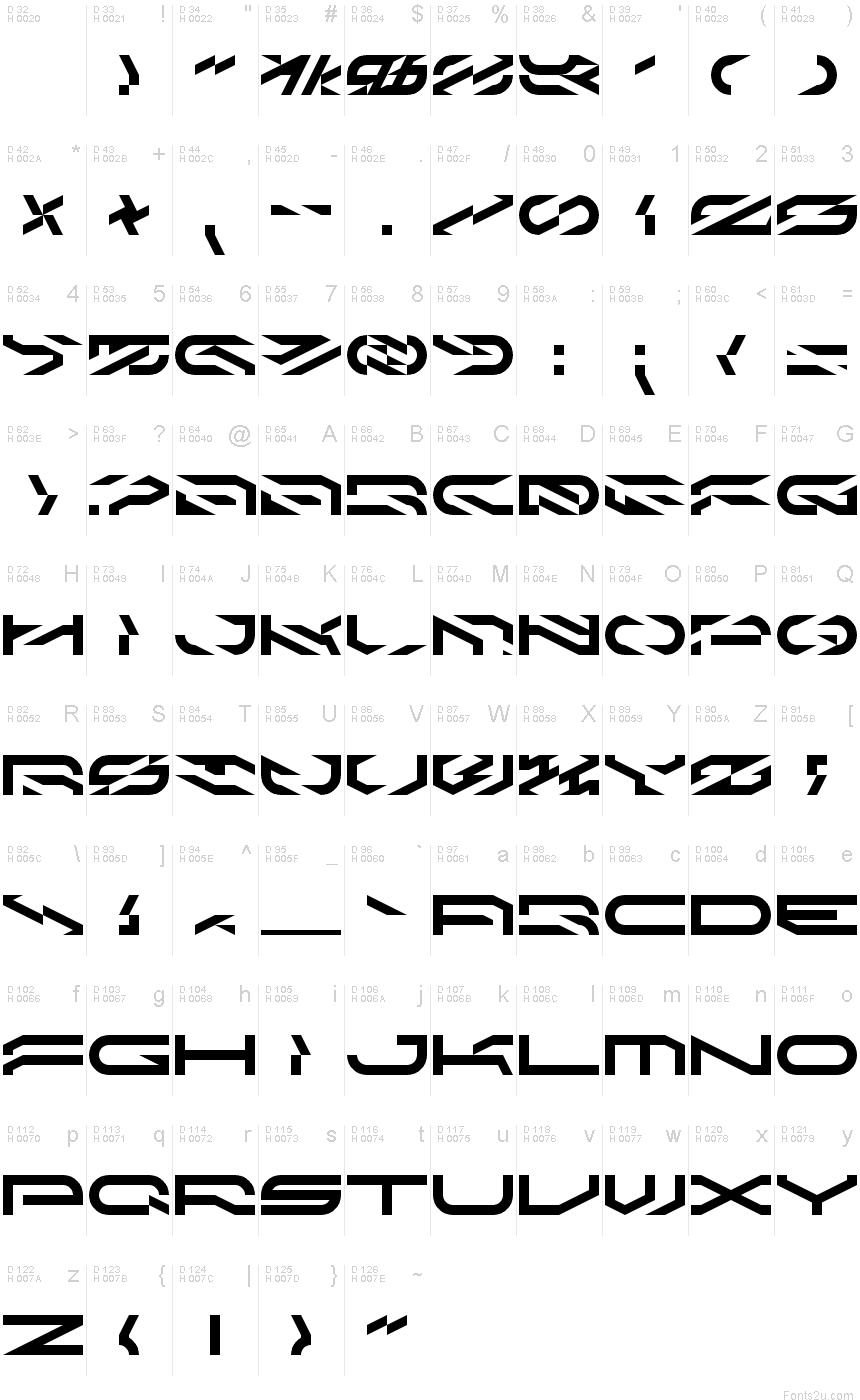
KleenBlades LDR by Neoqueto of FontStruct is a free futuristic display font with broad, low-slung letters and a sharply engineered silhouette. Long horizontal strokes, clipped corners, and blade-like diagonal cuts give the lettering the look of custom machine panels.
Science fiction and high-speed technology are its clearest territory. It suits game interfaces, esports branding, album covers, and motorsport graphics, where the stretched forms suggest speed and precision. The sliced letter shapes can echo vehicle decals, circuit patterns, and hard-surface concept art, making the type part of the surrounding imagery.